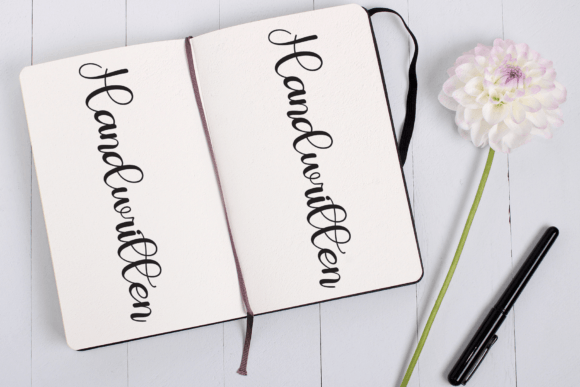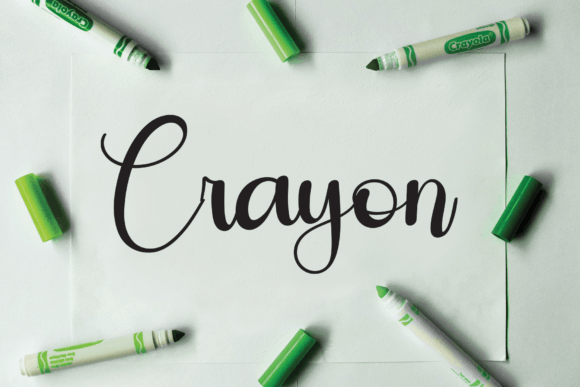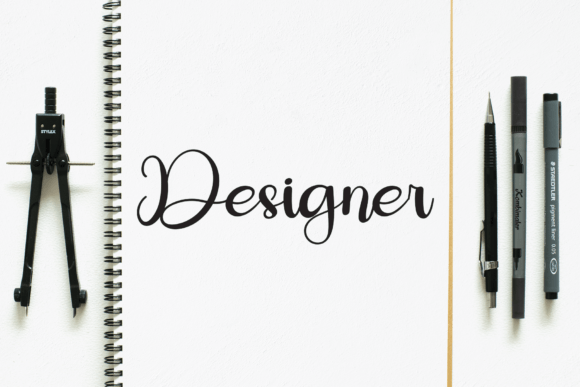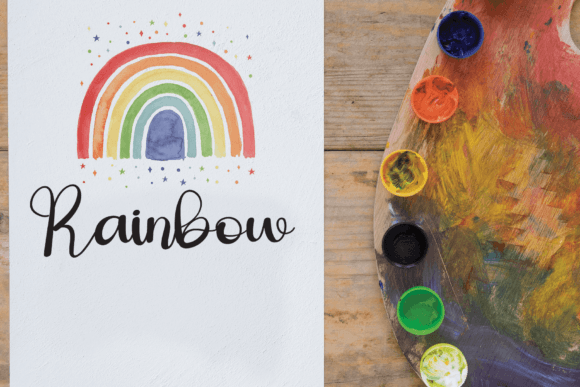
Introduction to Sanyo Font
Meet the Sanyo Font, a unique handwritten font that exudes elegance and sophistication. With its totally different and timeless style, this font is perfect for adding a touch of personality to your designs. Whether you’re working on a high-quality brochure, a website, or even a social media graphic, the Sanyo Font is sure to be a valuable design resource.
Key Features of Sanyo Font
- Unique, modern design that can add a touch of sophistication to any project
Honest Review: Sanyo Font
- ✨ The design is sleek and modern, perfect for creating a professional and sophisticated look.
- ⚠️ The design may not be as versatile as other fonts, making it more challenging to use in complex design projects.
Overall, the Sanyo Font is a solid design resource for designers who need a high-quality, free font for their creative projects. While it may have some limitations, it’s an excellent choice for designers who want a sleek and modern look without breaking the bank.
Tips for Getting the Most Out of Sanyo Font
To get the most out of the Sanyo Font, experiment with different font sizes, colors, and combinations to achieve a unique look for your project.
The Sanyo Font is perfect for various design projects, including:
- Print materials